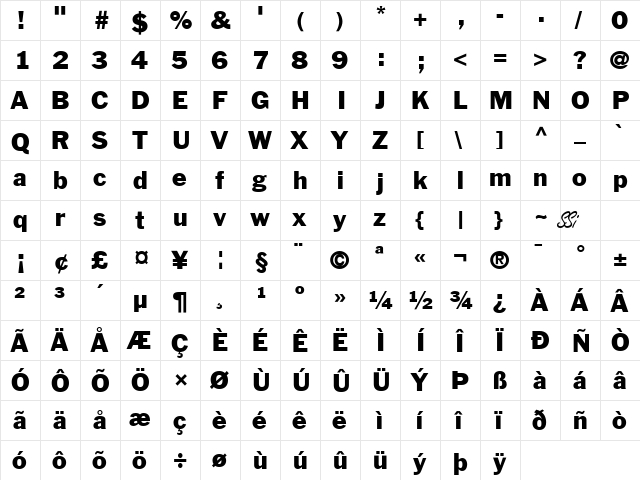
Franklin Gothic Medium SSi Regular
Design Context for Franklin Gothic Medium SSi Typeface
Franklin Gothic Medium SSi takes a clean, functional approach — its unadorned letterforms prioritise legibility and work reliably across screen and print environments.
Font Pairing: Works well alongside a characterful serif or display font that can carry the expressive load while Franklin Gothic Medium SSi handles the functional copy.
Pro Tip: Pair Franklin Gothic Medium SSi with a display or serif font for headlines — its neutral character makes it an excellent supporting player in complex typographic systems.